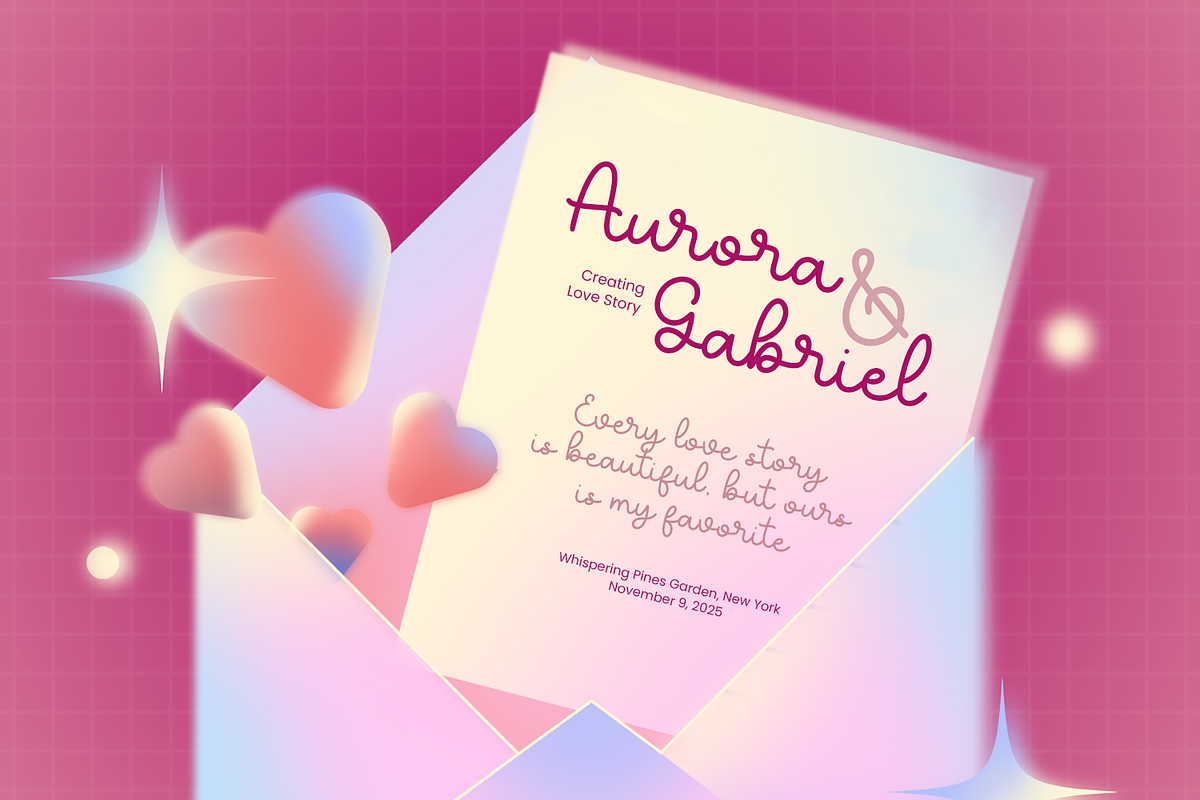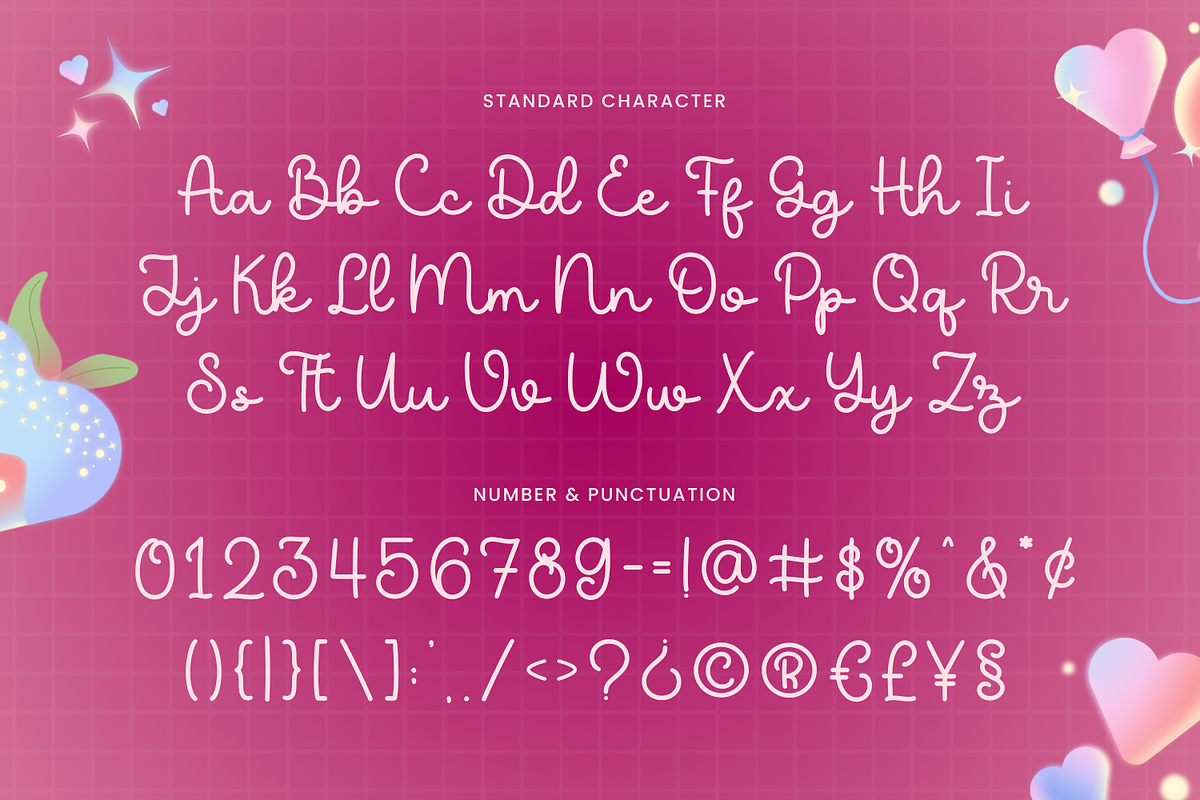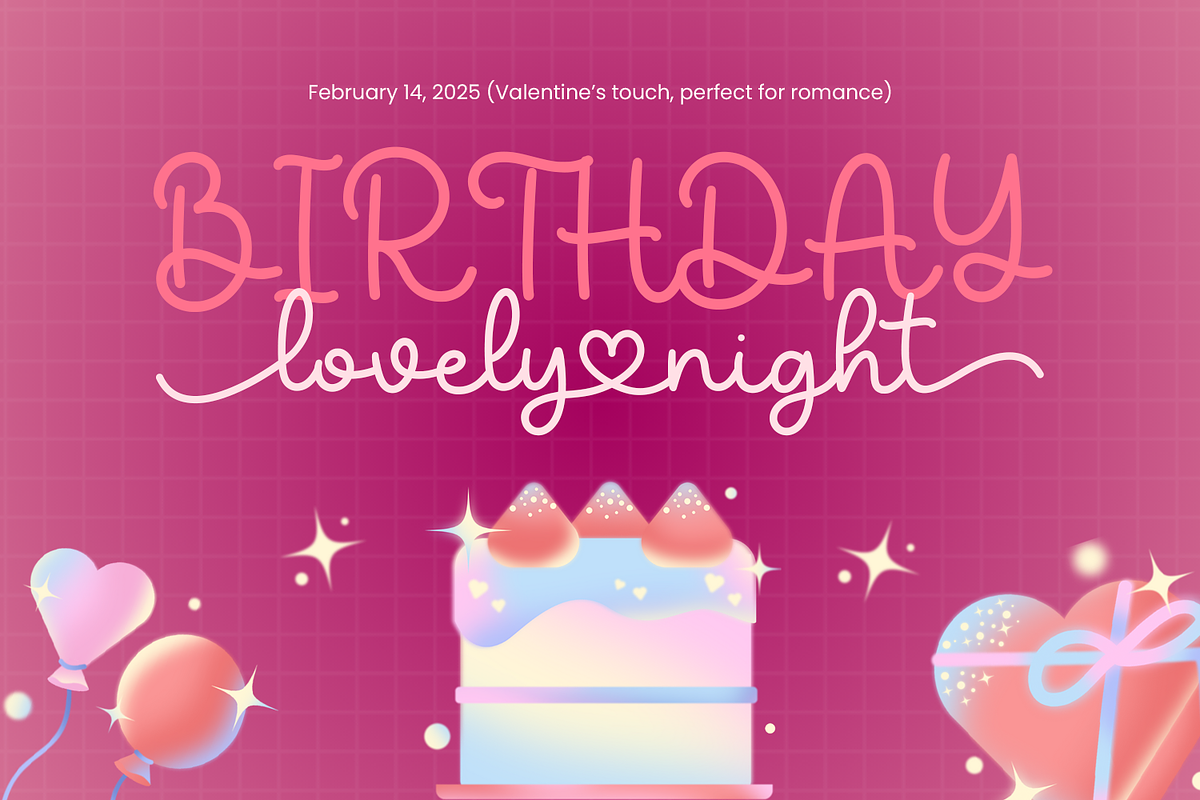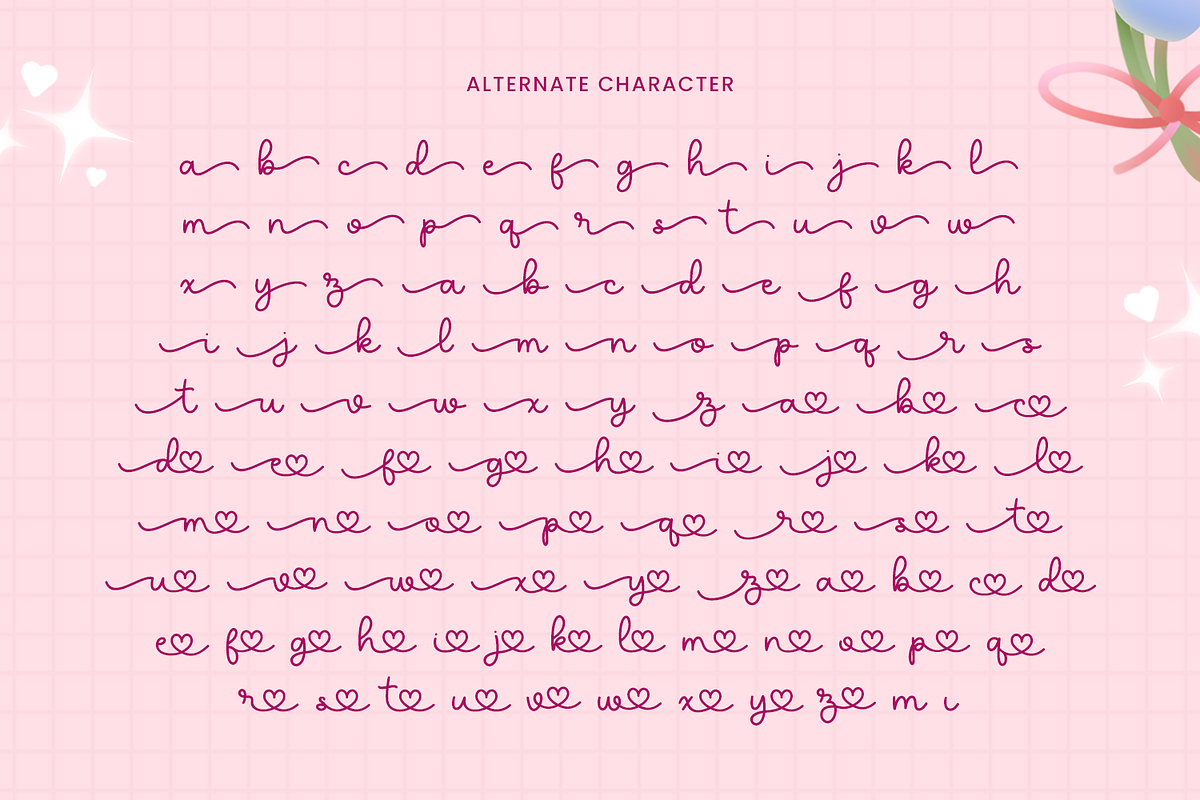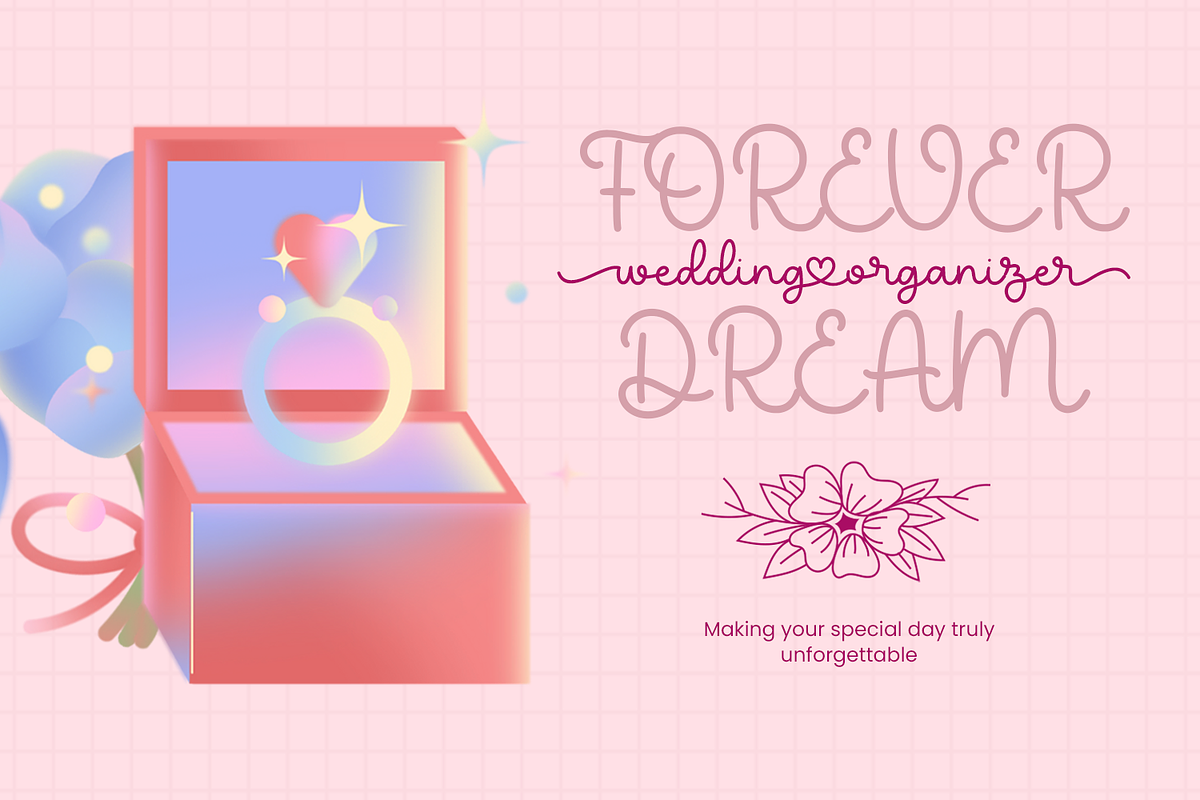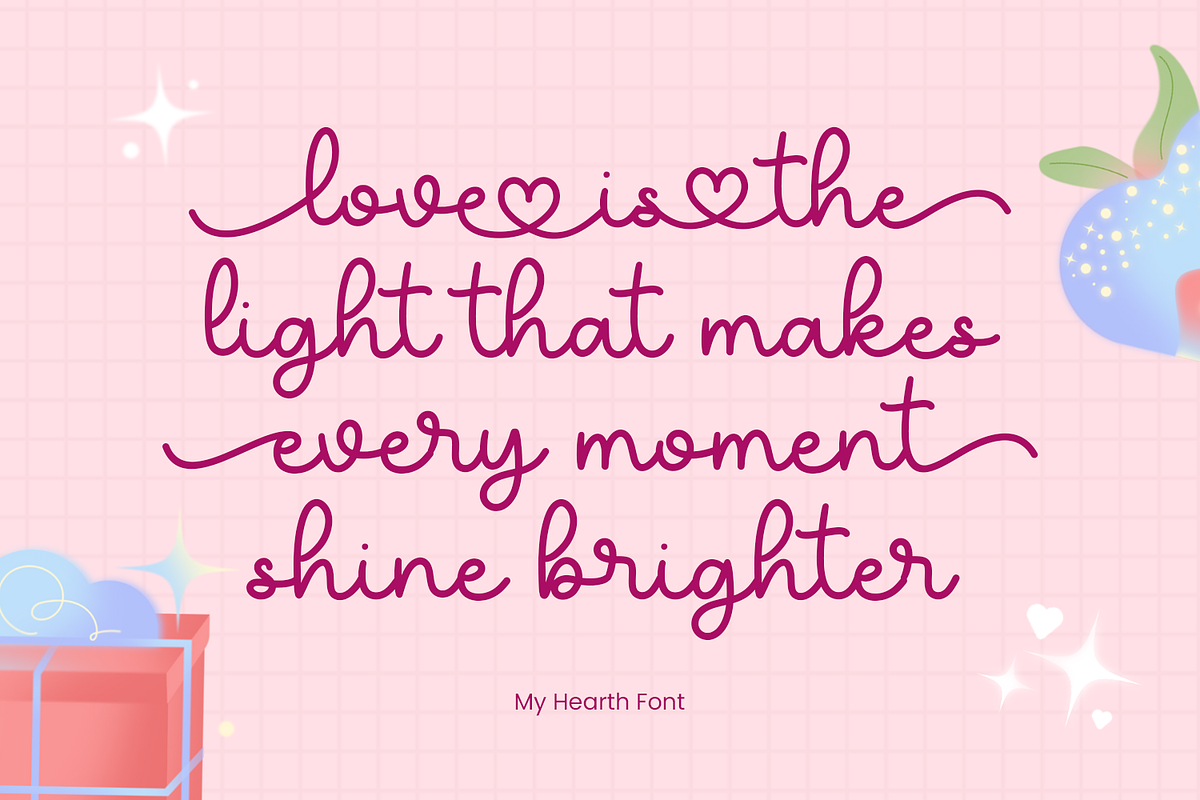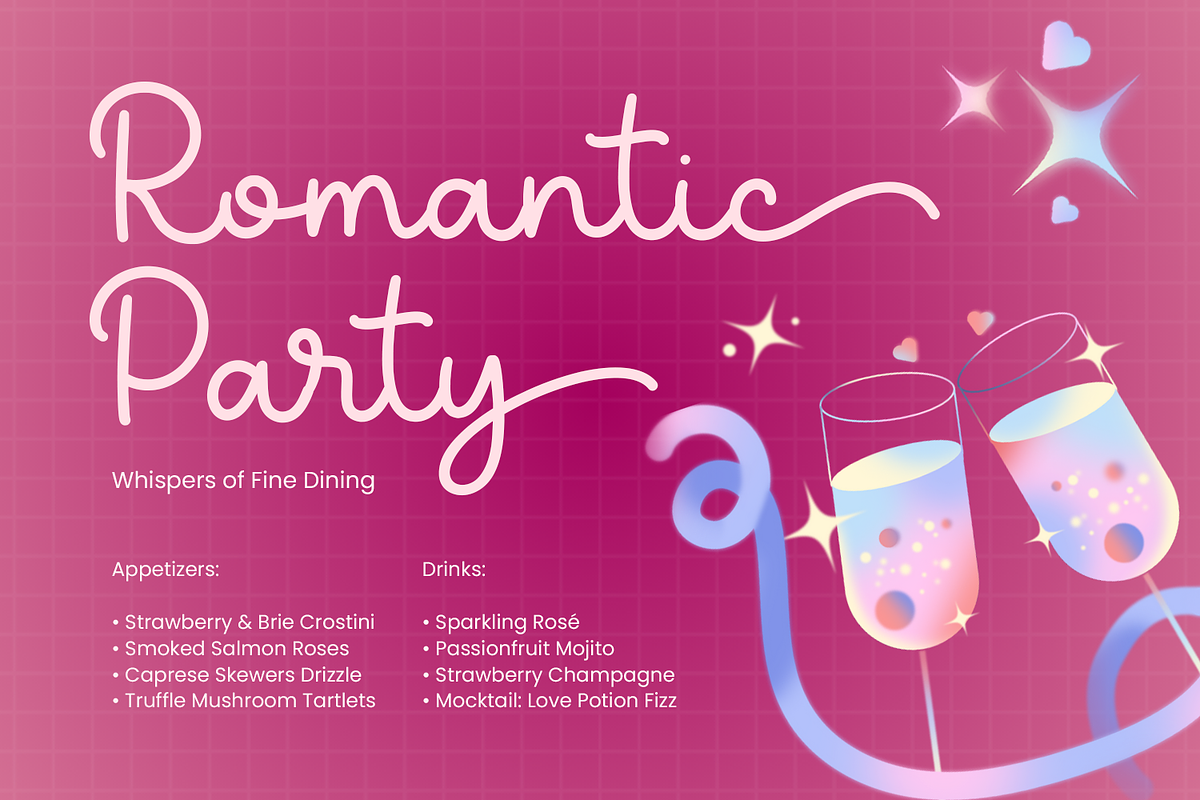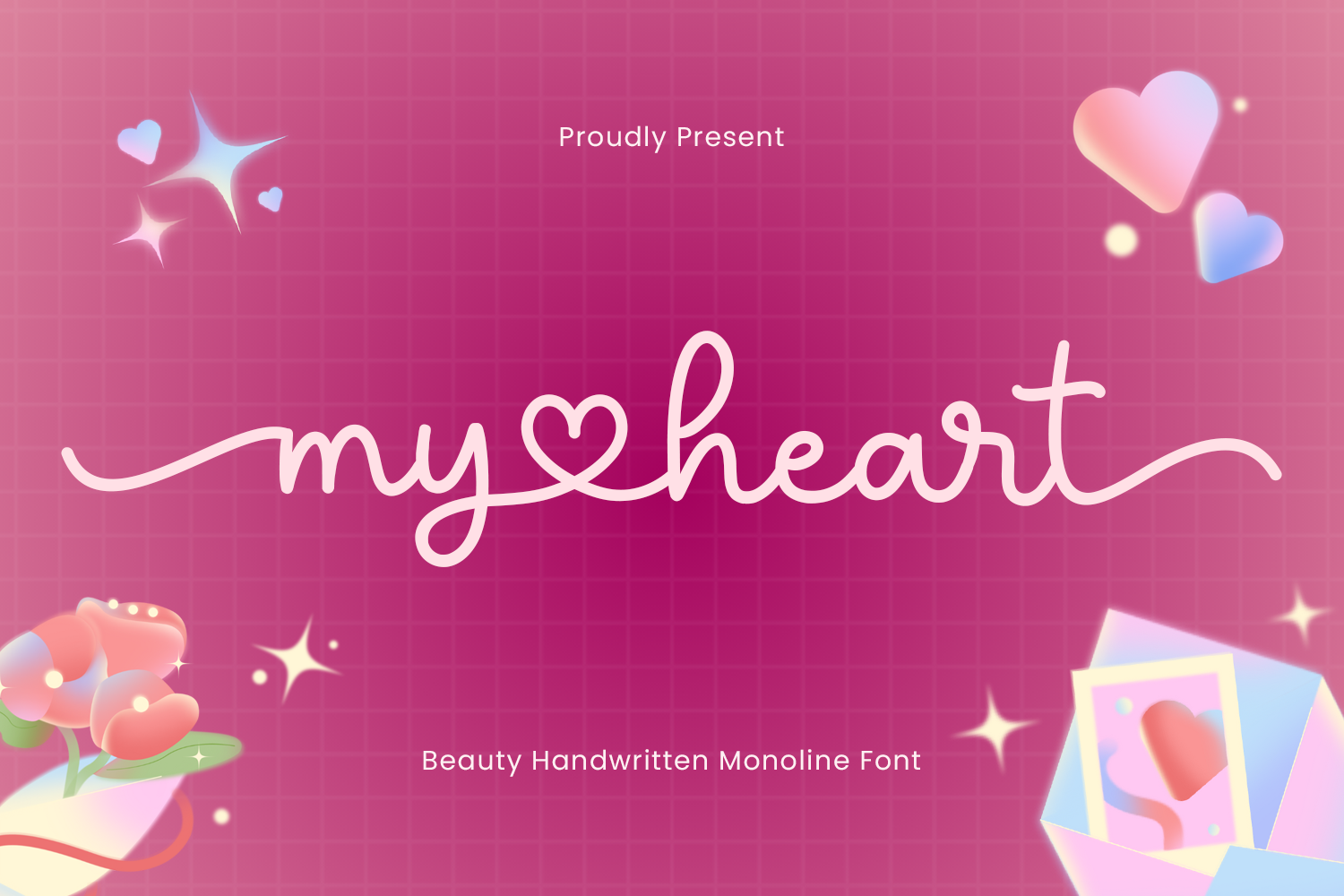
My Heart - Valentine Font
My Heart – Lovely and Romantic Font is a modern script font with a beautiful handmade calligraphy style. Featuring smooth curves, decorative swashes, and a natural handwritten flow, this font captures the warmth and emotion of true love.
Perfect for wedding invitations, Valentine’s cards, love letters, and elegant branding, My Heart adds a soft, romantic charm to any design. Its graceful strokes and balanced baseline create a timeless, heartfelt aesthetic that feels both trendy and genuine.
This charming font blends a modern calligraphic touch with a handcrafted feel, making it ideal for projects that celebrate love, passion, and beauty. Whether used for greeting cards, logos, quotes, or stationery, it brings an authentic and expressive handwritten character.
Add a touch of romance to your creative work with My Heart – Lovely and Romantic Font. Perfect for weddings, Valentine’s Day, and any design that needs an elegant, personal, and emotional touch.